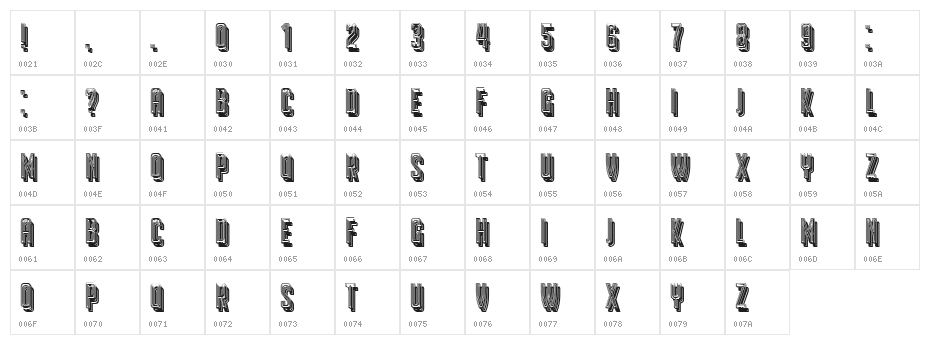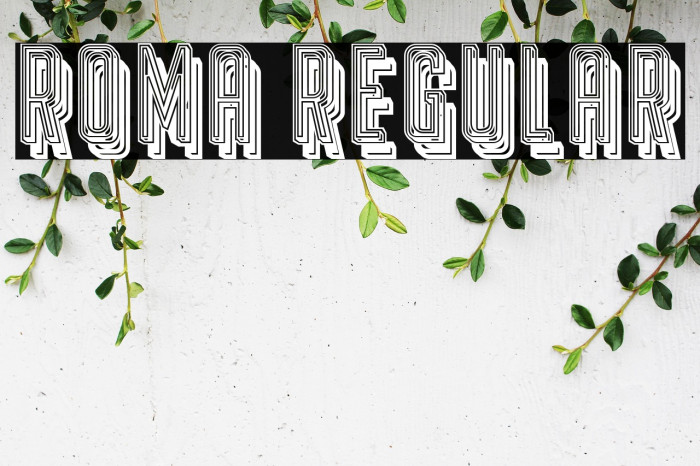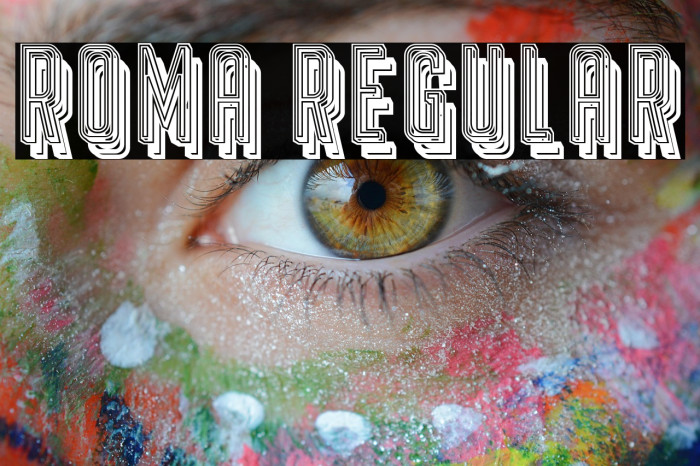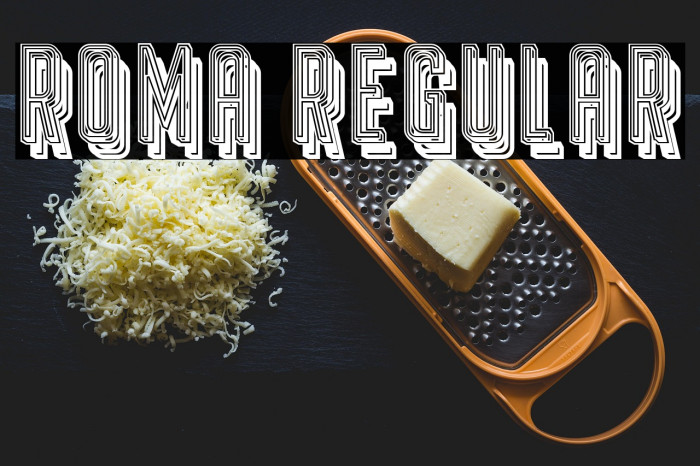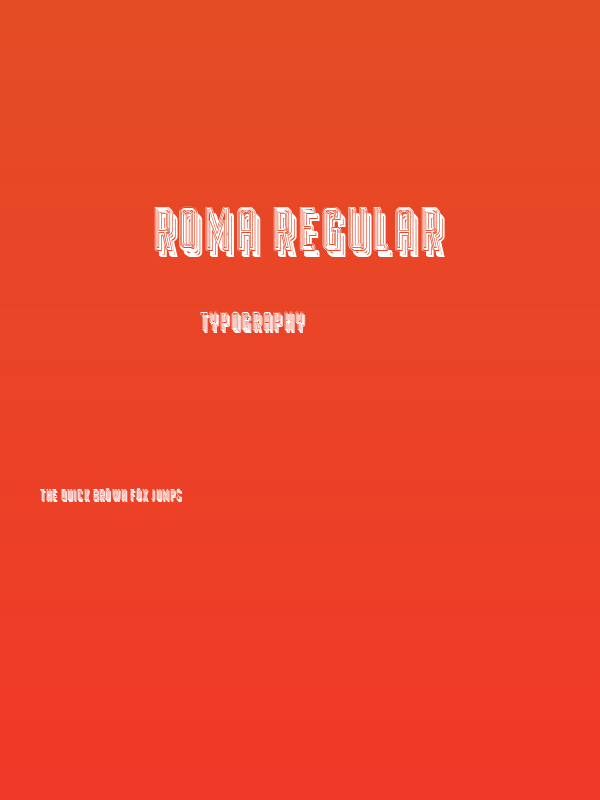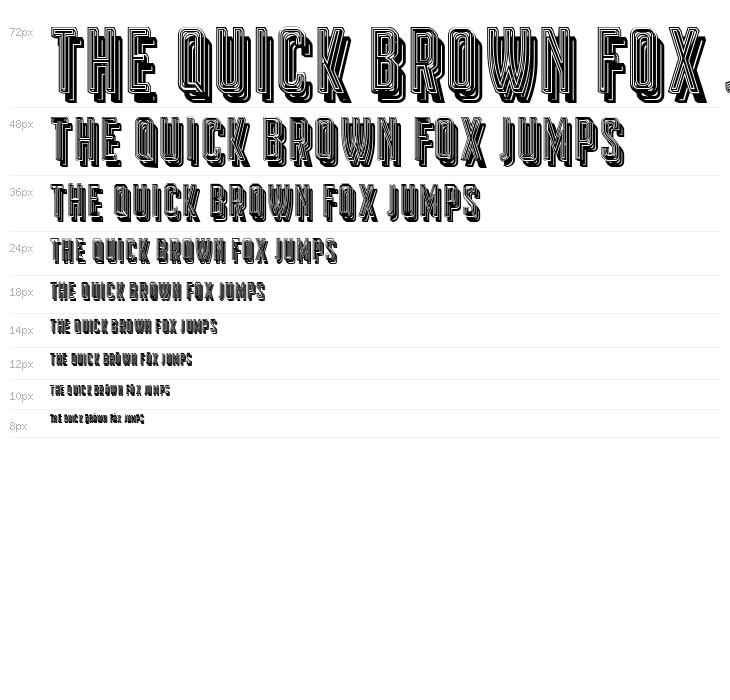
Roma Regular Font
Roma Regular Description
This font features a bold, decorative style with a three-dimensional effect created by layered outlines. Each character is constructed with multiple lines that give a sense of depth and movement, making it stand out prominently. The uppercase and lowercase letters maintain a consistent design, with sharp angles and clean lines that contribute to its modern and dynamic appearance. The numerals and special characters follow the same stylistic approach, ensuring uniformity across all elements. This font's unique structure makes it ideal for eye-catching designs.
| Proposed Projects | Ideal for posters, headlines, logos, and branding materials that require a striking and memorable visual impact. |